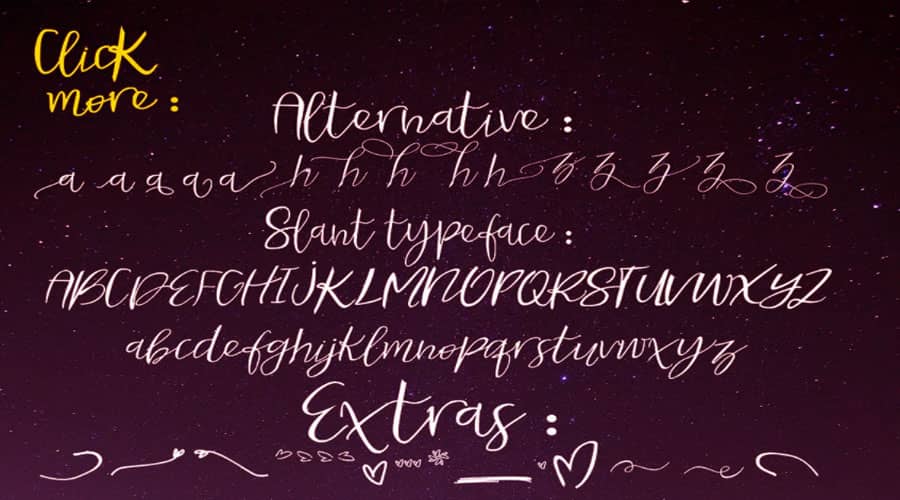
Lovely Fabulous Script Font Free
I am acquainting with you a delightful Script and calligraphy textual style named Lovely Fabulous Script Font Free. The text style is planned and distributed by iTypeface on February 14, 2018.
Lovely Fabulous Script Font Free is a la mode Script and calligraphy text style that includes a differing benchmark, smooth line, exemplary and rich touch. The textual style highlights 340 glyphs and 124 substitute characters: counting beginning and terminal letters, substitutes, ligatures and numerous language support. The referenced text style is free for Personal use. The text style is accessible in TTF and OTF textual style type.
Lovely Fabulous Script Font Free is ideal for different purposes. Such as headings, signature, logos, wedding greeting, shirt, letterhead, signage, labels, news, banners, identifications and so on. The font mostly used in price tags and the cover of cups for various brands.